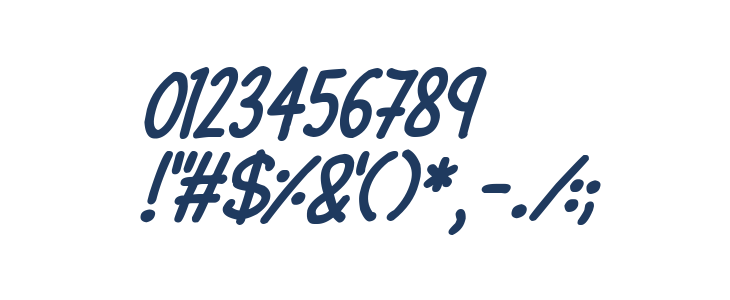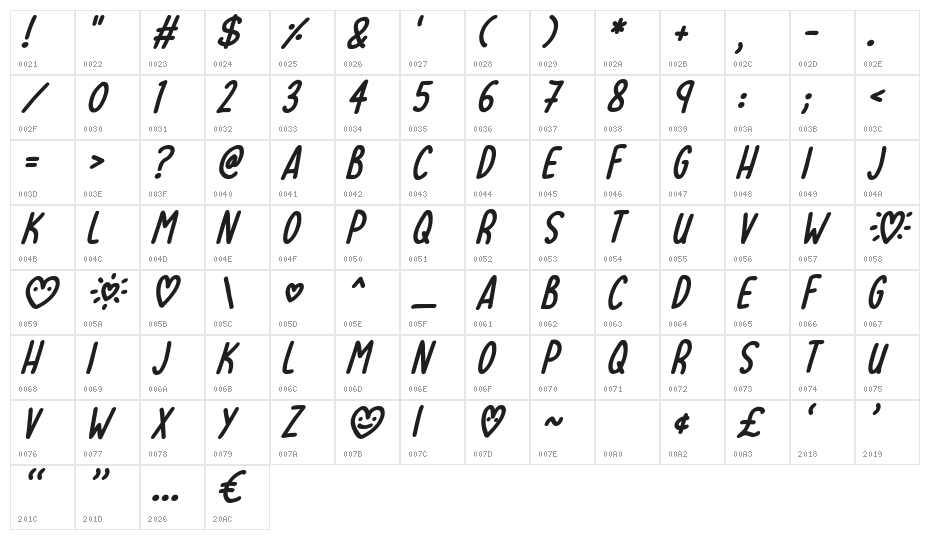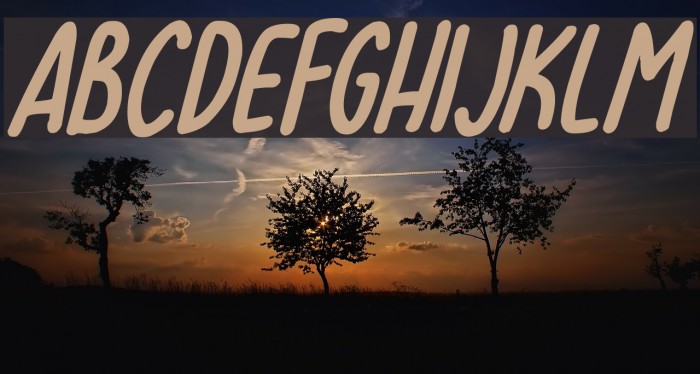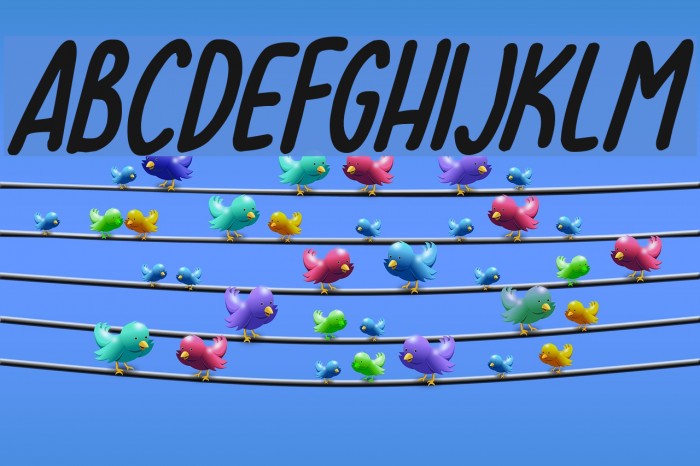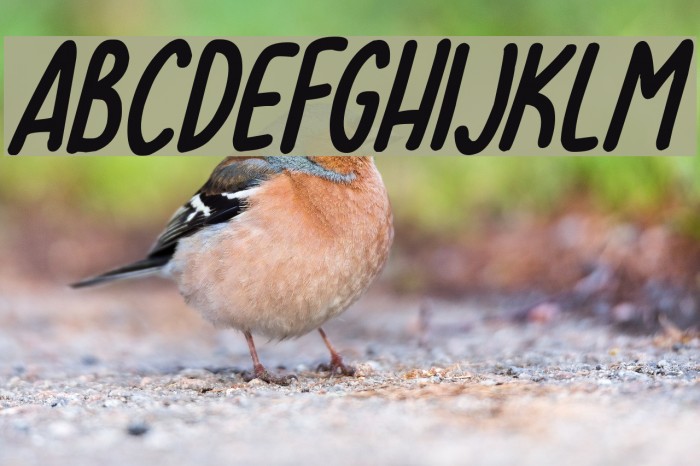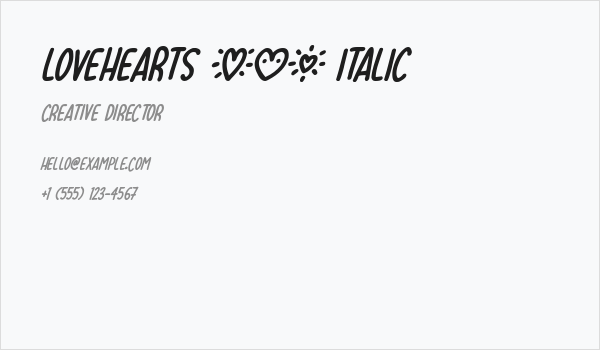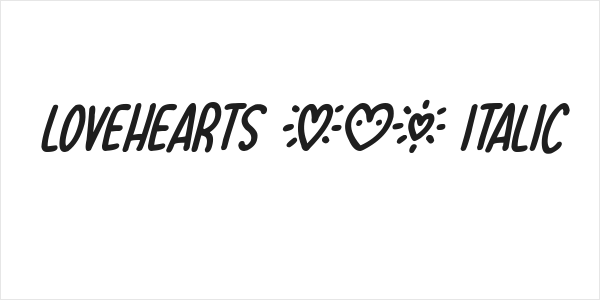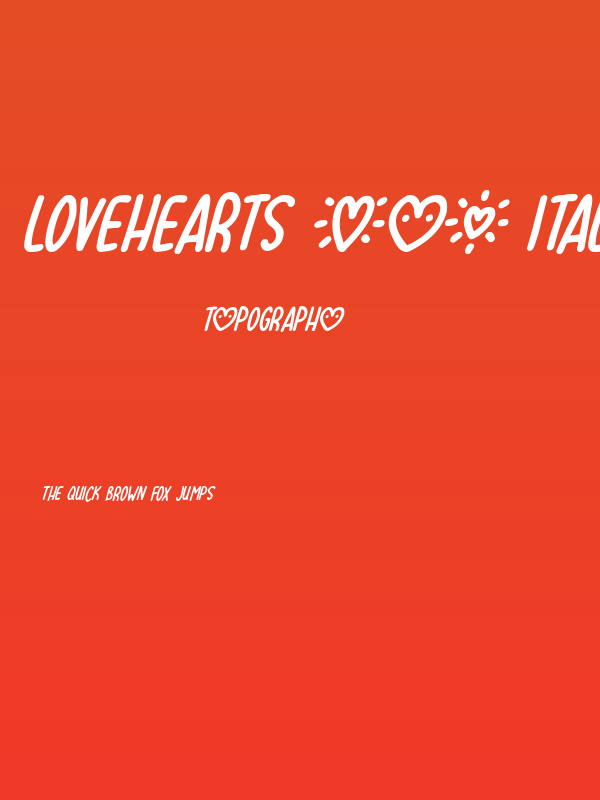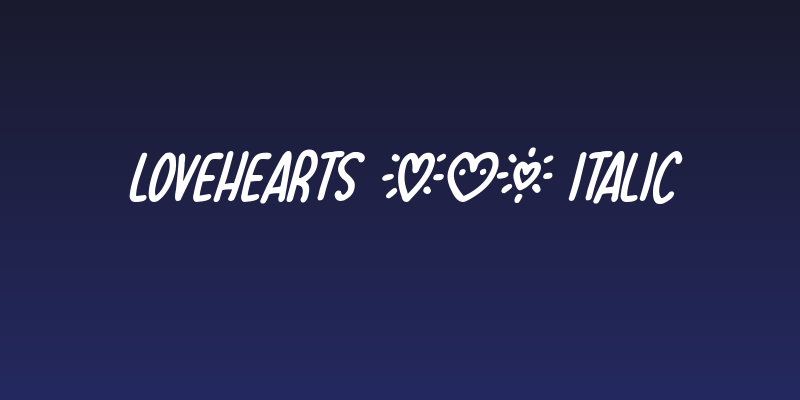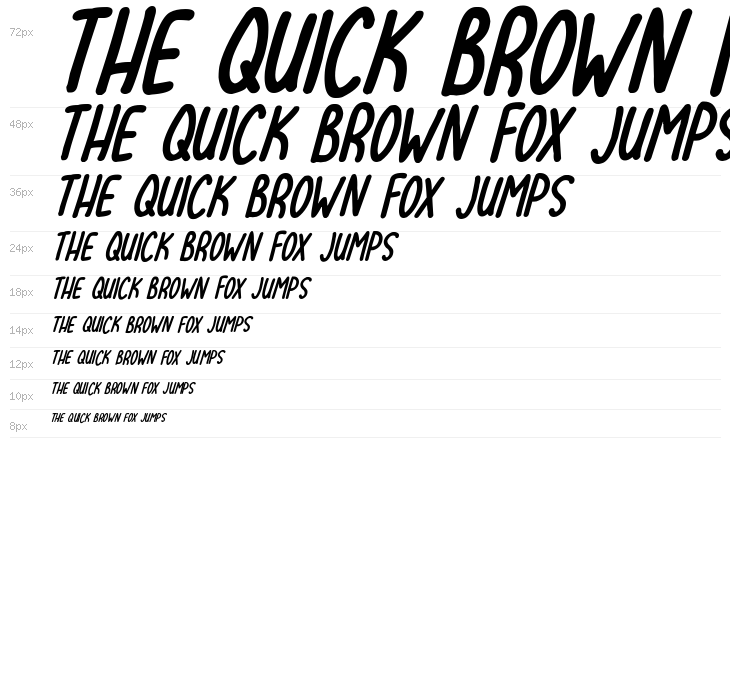
Lovehearts XYZ Italic Font
Lovehearts XYZ Italic Description
This font features a playful and energetic handwritten style, characterized by its bold and slightly slanted letters. The strokes are thick and rounded, giving it a friendly and approachable appearance. The uppercase and lowercase letters are consistent in style, maintaining a cohesive look throughout. The numbers and special characters are designed to match the lively aesthetic of the alphabet, making it versatile for various uses. The heart symbols add a whimsical touch, enhancing its decorative appeal.